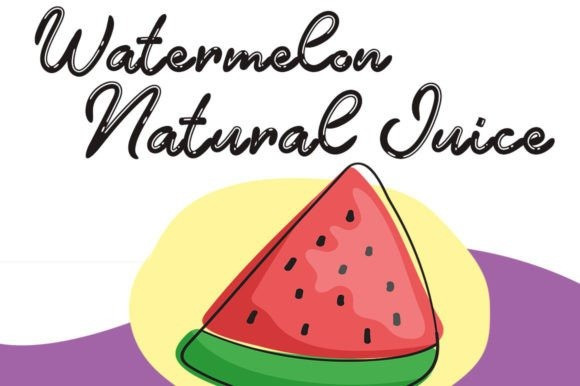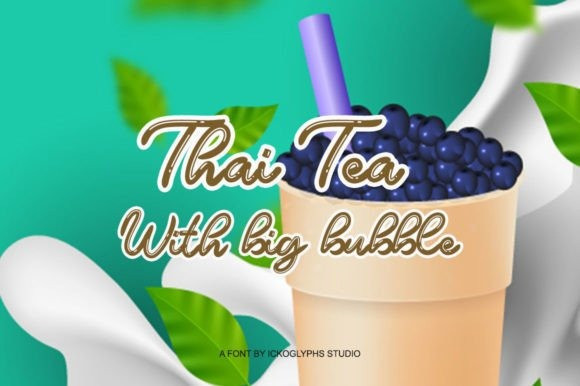
Anderson Wakler Script Font
Anderson Wakler is a vintage styled, well balanced and thin lettered script font. This font is PUA encoded which means you can access all of the amazing glyphs and ligatures with ease! Add it confidently to your favorite creations and let yourself be amazed by the outcome generated.